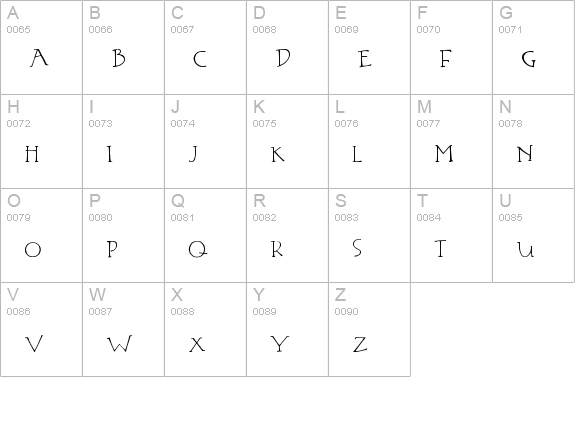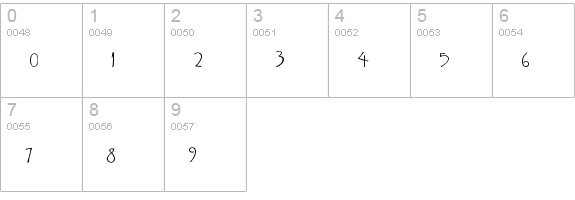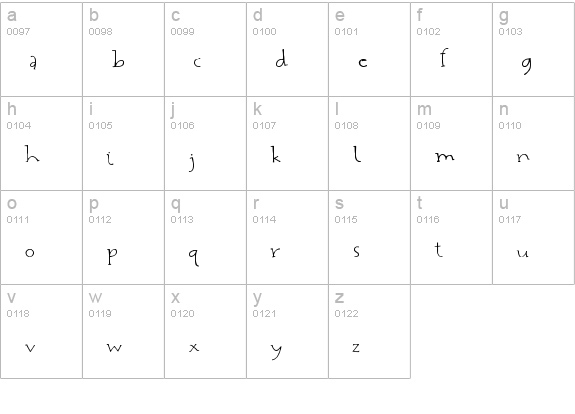
Ian Jude Font Details
Introducing Ian Jude, a captivating and versatile font that effortlessly combines elegance with modernity. This exquisite typeface is perfect for adding a touch of sophistication to any design project. Whether you're creating professional documents, designing eye-catching logos, or crafting stunning invitations, Ian Jude is sure to impress. With its clean lines and balanced proportions, Ian Jude commands attention while maintaining a sense of refinement. Its sleek and stylish appearance makes it suitable for a wide range of applications, from branding and advertising to editorial design and website typography. But what sets Ian Jude apart is not just its exceptional design; it's also the fact that it is available for free! That's right, this incredible font can be downloaded at no cost from FontsMarket.com. Now, you can enhance your creative endeavors without breaking the bank. So why wait? Don't miss out on this opportunity to elevate your designs with the timeless elegance of Ian Jude. Download it now and unlock a world of possibilities. With Ian Jude, you'll have the power to make a lasting impression and captivate your audience like never before.